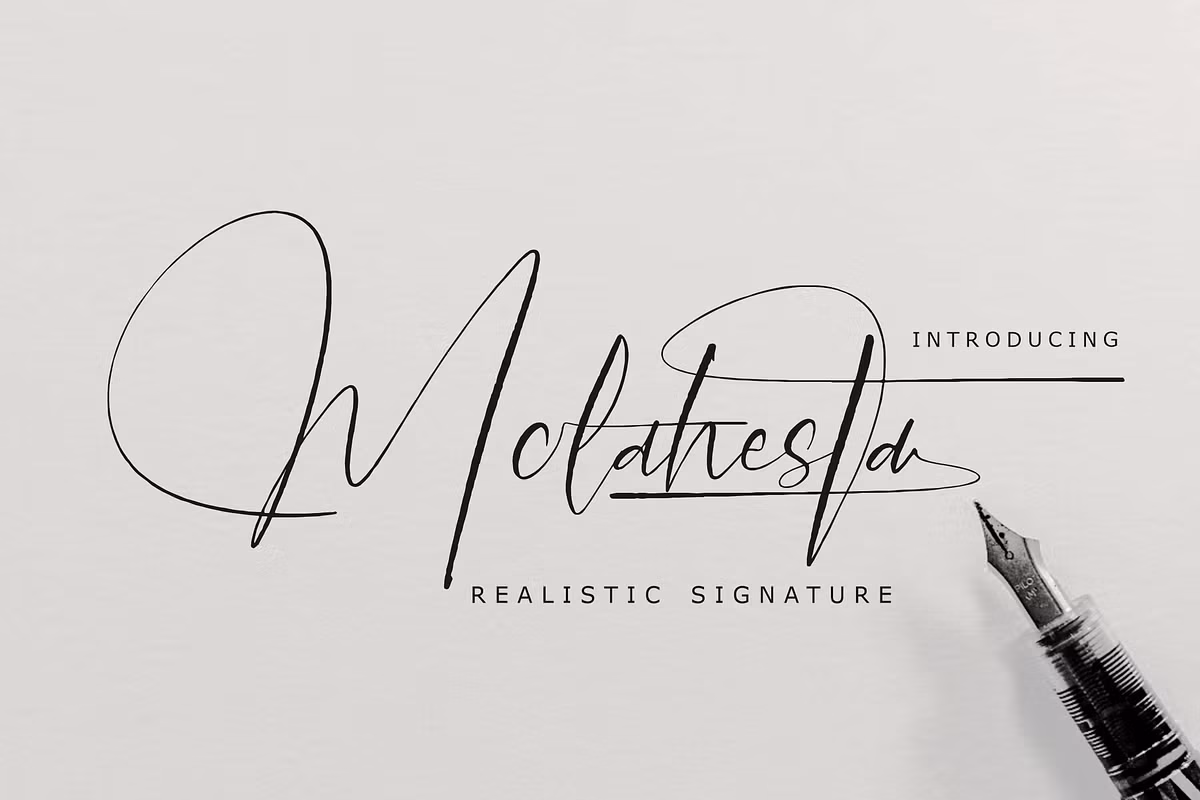
Molahesta Realistic Signature Font Free Download is a beautifully crafted typeface that mimics the natural flow of handwritten signatures. With its smooth strokes and authentic feel, Molahesta adds a personal, elegant touch to branding, logos, invitations, and social media posts. It's especially popular for fashion labels, beauty products, and photographers looking to add a signature-style watermark to their visuals.
Designed to reflect true handwriting with subtle imperfections and fluid movements, Molahesta brings warmth and character to your creative projects. Whether you're designing for a boutique brand or a high-end event, this font delivers sophistication and charm in equal measure.
For designers seeking an authentic and stylish script, Molahesta Realistic Signature Font Free Download is a must-try. It’s versatile enough for both bold statement pieces and delicate accents.